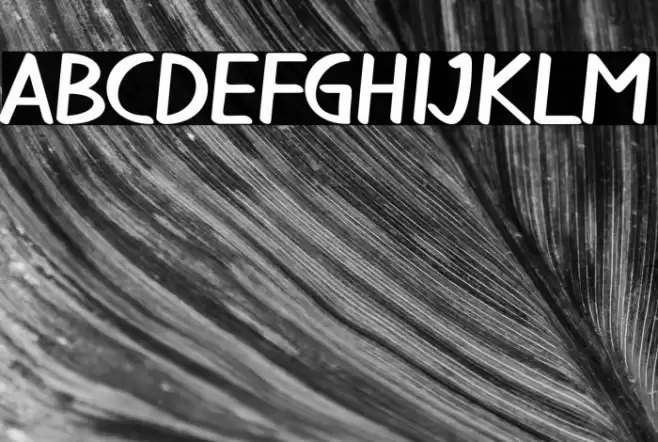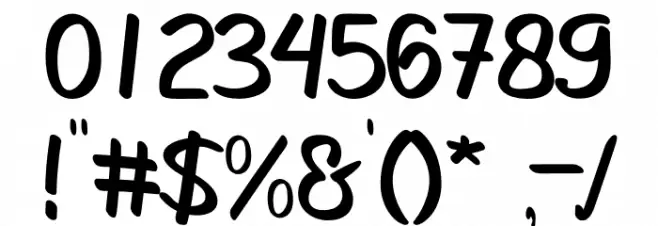
little coffee Font
little coffee Description
This playful and informal font features a handwritten style with a casual, friendly appearance. The characters are slightly rounded with a consistent stroke width, giving it a smooth and approachable look. The uppercase and lowercase letters maintain a cohesive style, with a slight slant that adds to its relaxed feel. The numerals and special characters are designed to match the overall aesthetic, making it versatile for various uses. The font's unique charm lies in its ability to convey a sense of warmth and personality, making it ideal for projects that require a personal touch.
A playful, handwritten font with a casual and friendly style from Uncategorized fonts.
- Font: little coffee
- Proposed Projects: Great for greeting cards, children's books, casual branding, and social media graphics.
- Overall Style: Casual
- Use Case: Logos, Headlines, Informal Text